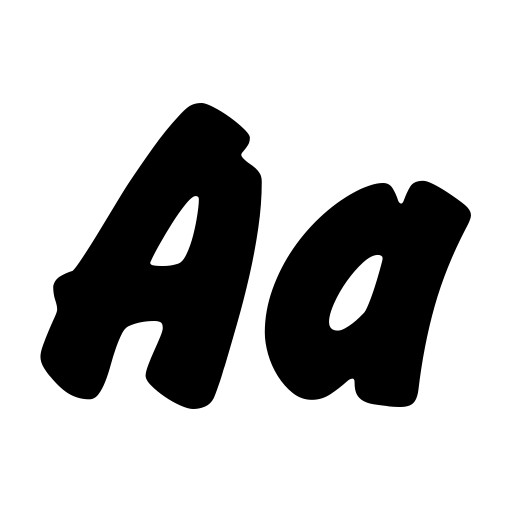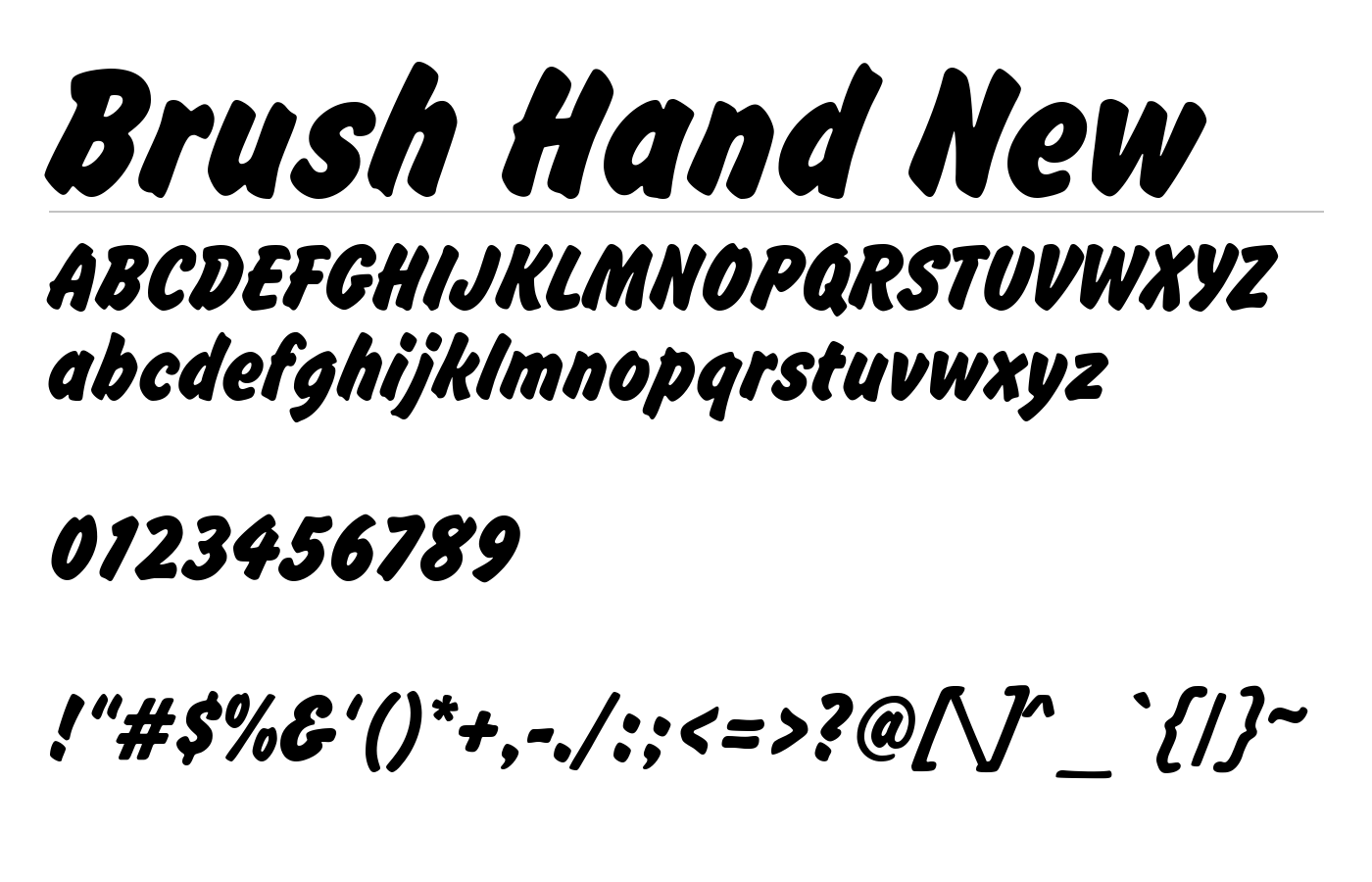
Brush Hand New is a bold, casual script font that mimics energetic brush strokes with its smooth, rounded edges and slightly slanted letterforms. Its playful yet confident style makes it perfect for creative branding, eye-catching headlines, and informal designs that seek a friendly and lively tone. This font works well where a personal, handcrafted feel is desired, such as in logos, posters, and packaging.
Brush Hand New Font
About Brush Hand New Font
| Font family | Brush Hand New Font |
| Designer | Keith Bates / anonymous / Edwin W. Shaar |